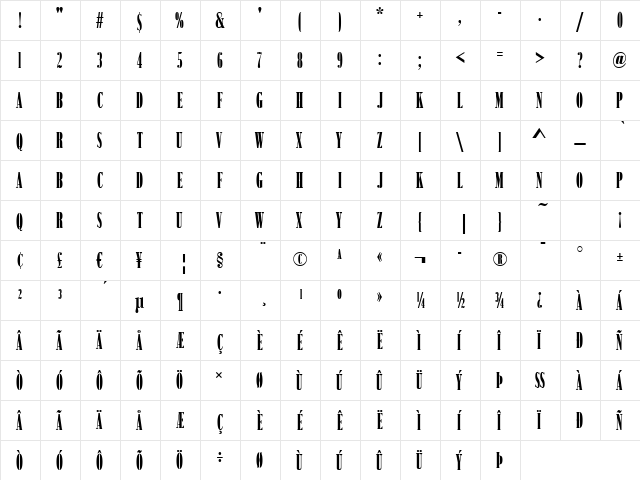
Bodoni-No2-Narrow-Ultra Regular
Design Context for Bodoni-No2-Narrow-Ultra Typeface
Bodoni-No2-Narrow-Ultra is a composed and adaptable typeface that performs quietly and consistently across a wide range of design contexts. Its narrow stance lets it pack a punch even in space-constrained designs.